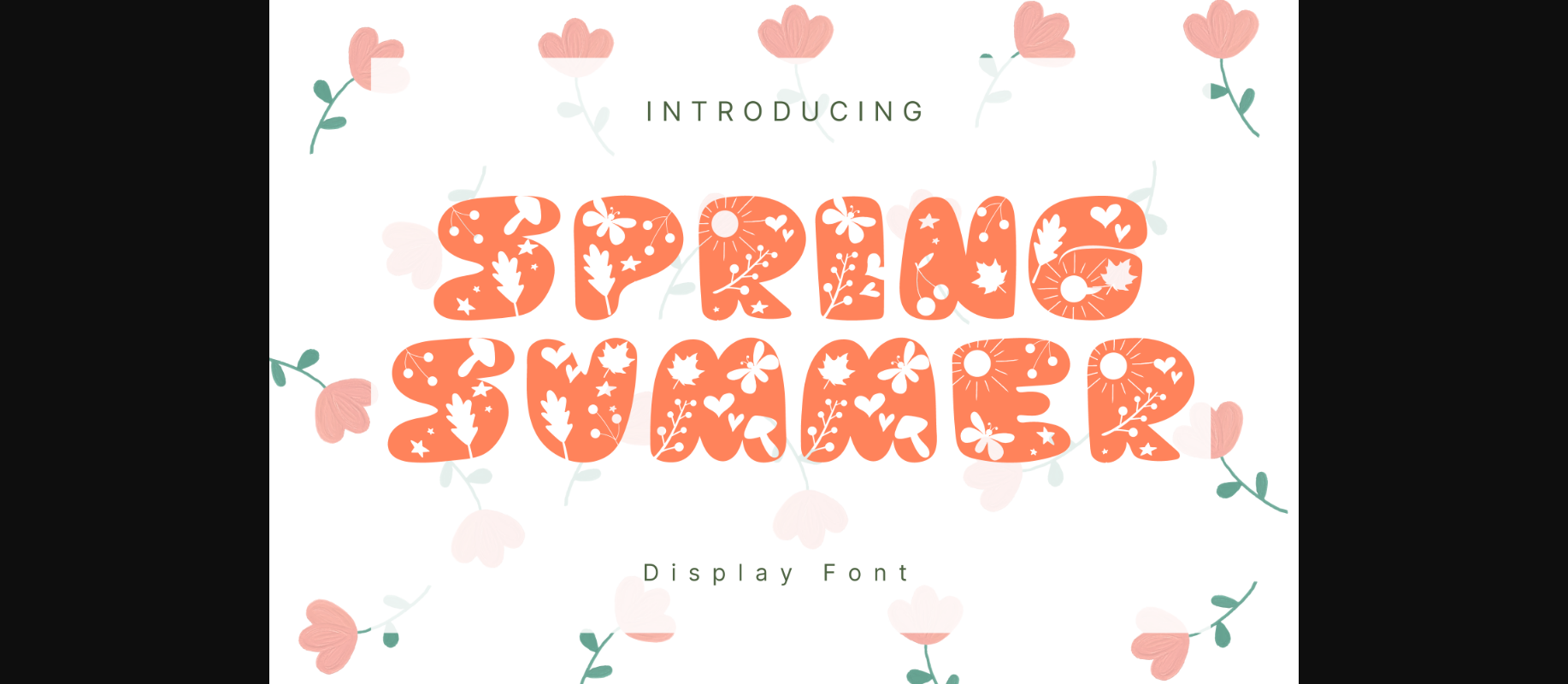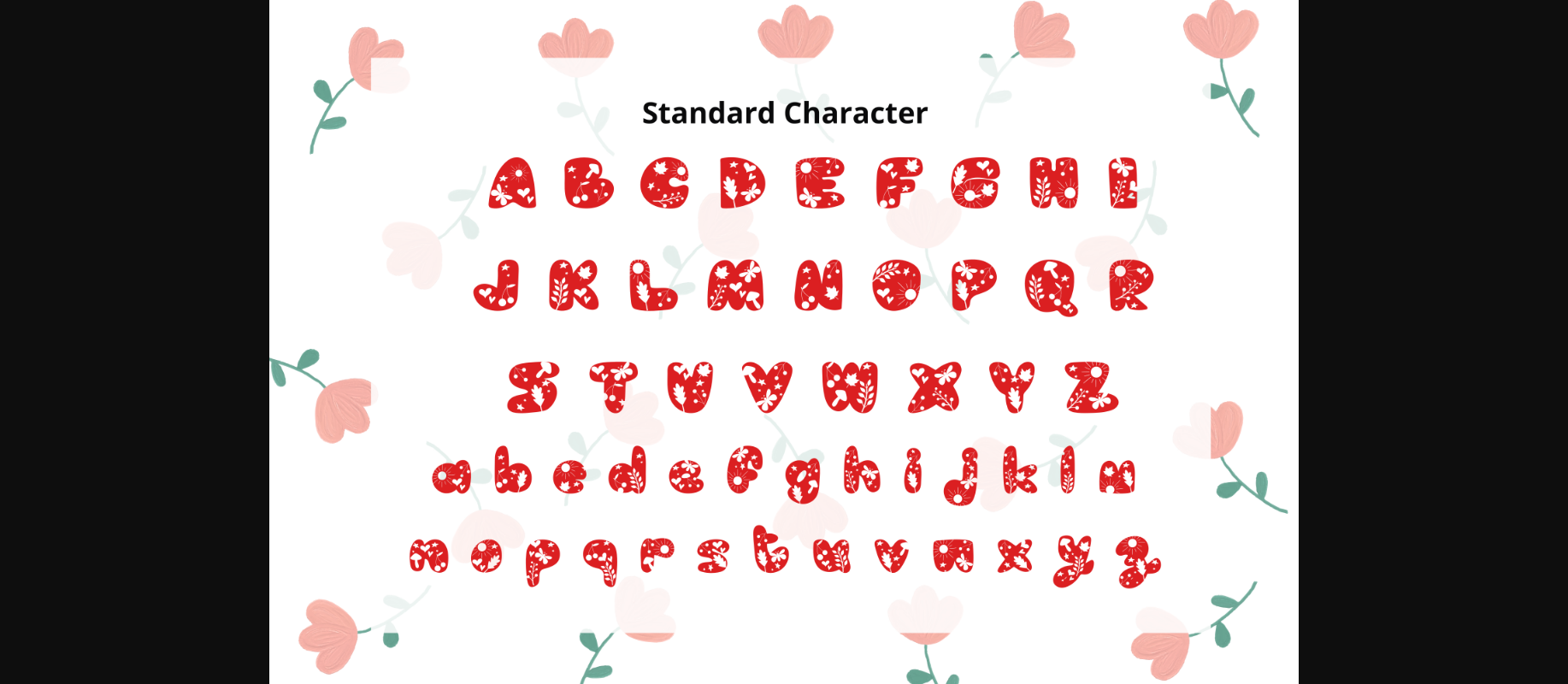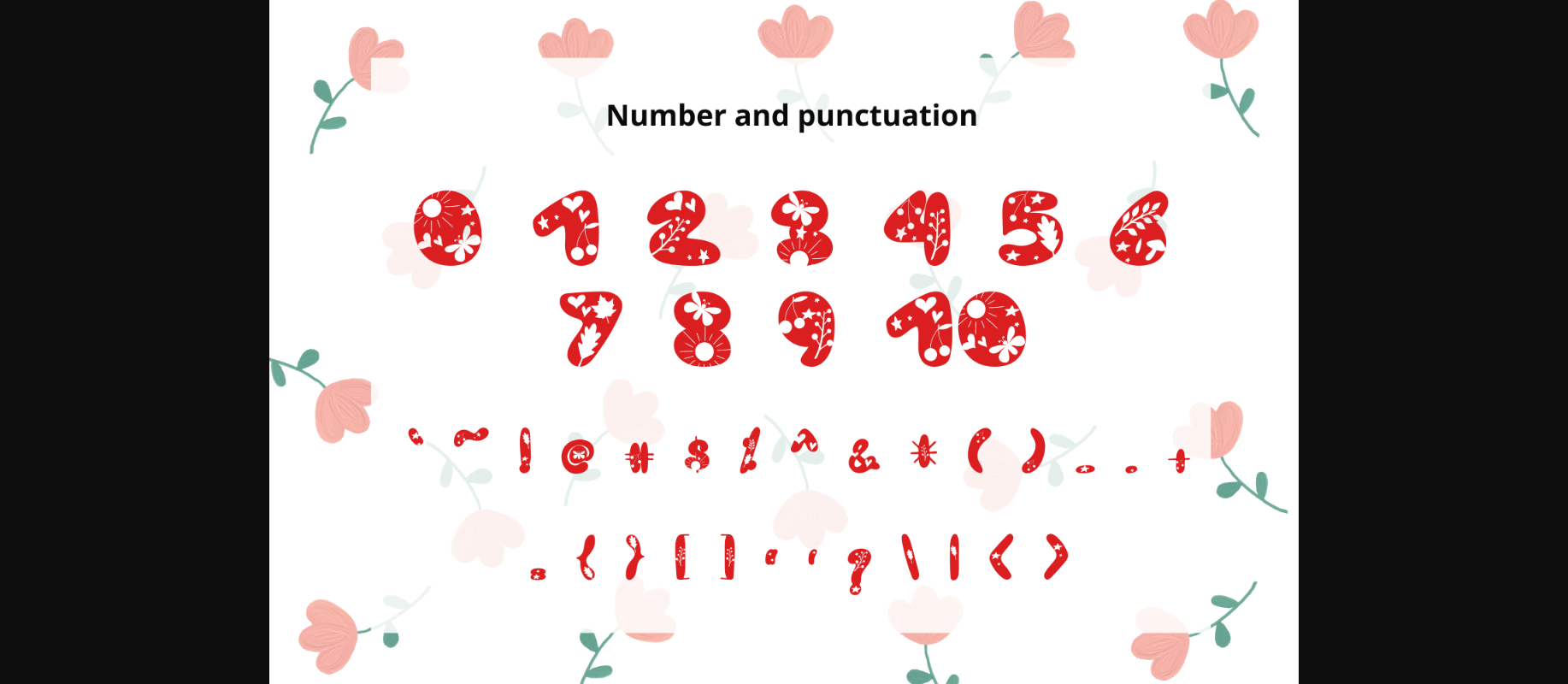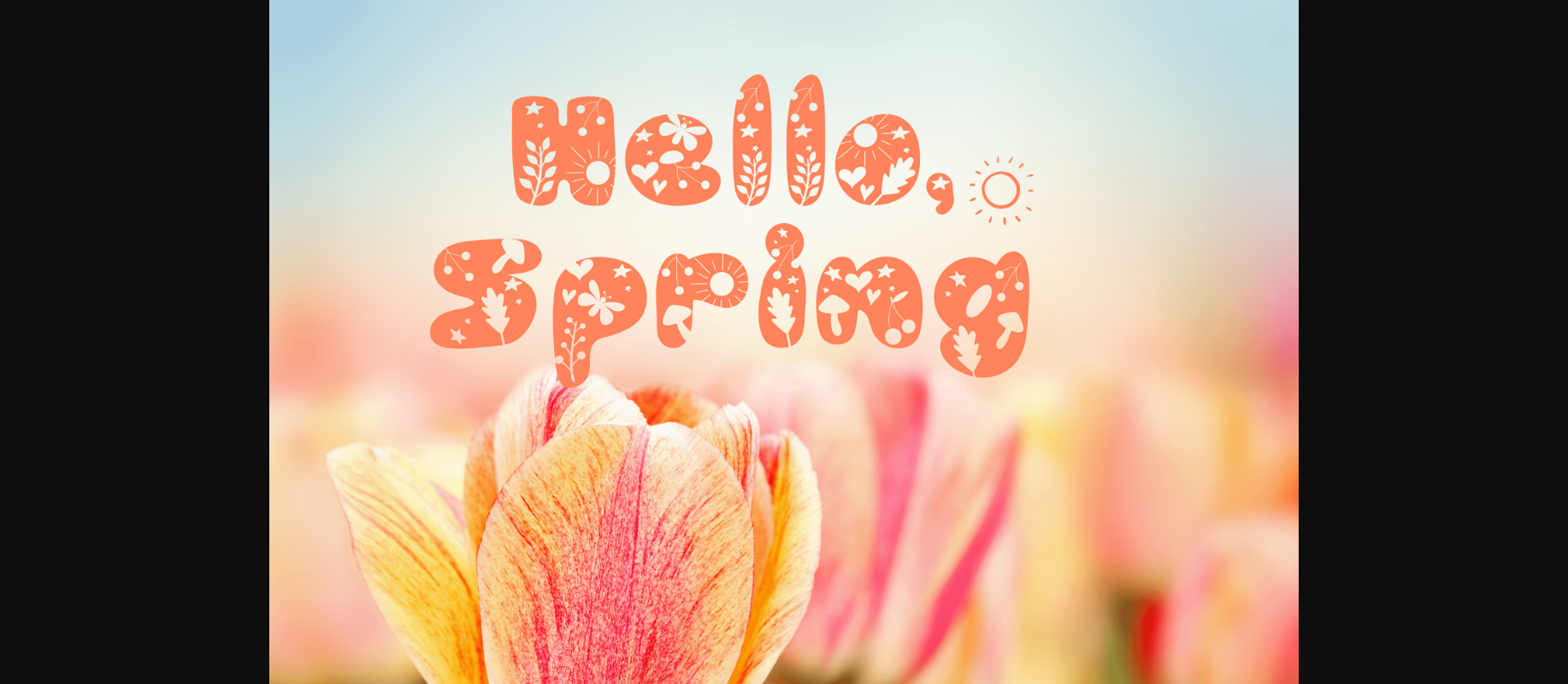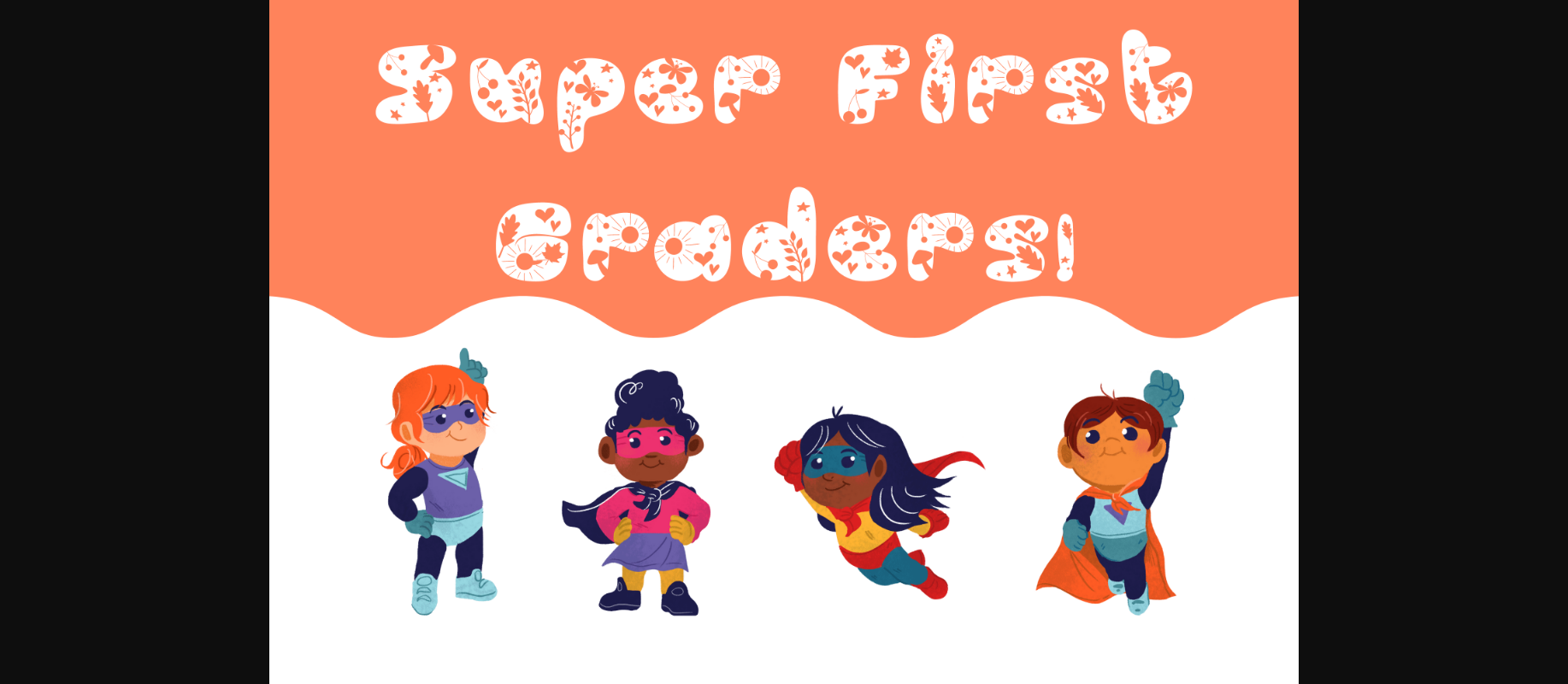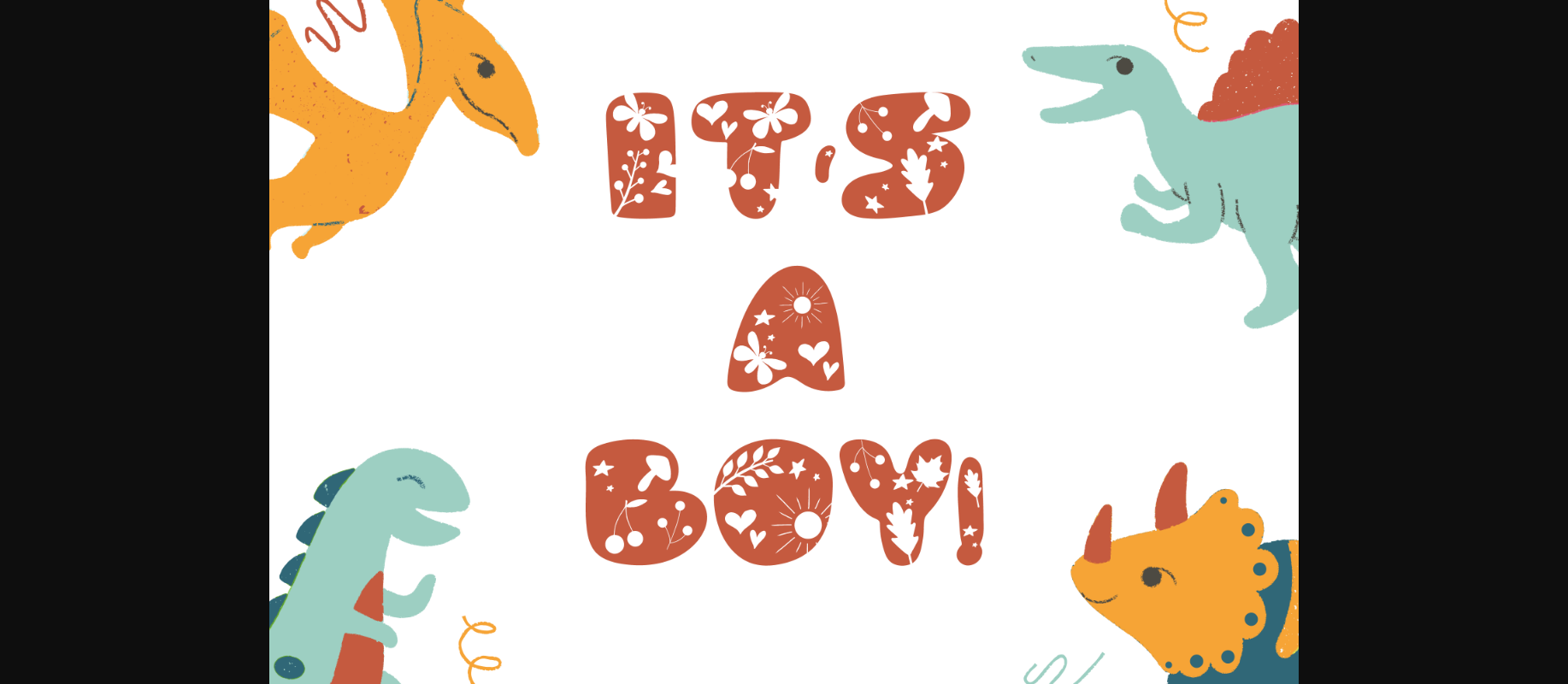
HomeDecorative FontsSpring Summer Font Decorative Fonts Spring Summer Font FacebookTwitterPinterestWhatsApp 1 of 8 ... Spring Summer Font Poster 2... Spring Summer Font Poster 3... Spring Summer Font Poster 4... Spring Summer Font Poster 5... Spring Summer Font Poster 6... Spring Summer Font Poster 7... Spring Summer Font Poster 8... About Spring Summer Font Spring Summer is a whimsical and adorable decorative display font. It can easily be matched to an incredibly large set of projects, so add it to your creative ideas and notice how it makes them stand out! DOWNLOAD NOW People also explored Frosty Blue Font Diamond Font Play Date Font Keroya Font Gravitation Font Destinee Elizabeth Font Morganite Amber Font Hello Font Specials Font 184 0 TagsSpring Summer Font Previous articleManday FontNext articleMagic Lotus Font LEAVE A REPLY Cancel reply Comment: Please enter your comment! Name:* Please enter your name here Email:* You have entered an incorrect email address! Please enter your email address here Website: Save my name, email, and website in this browser for the next time I comment. Personal Use Free Boby Personal Use Free Read more about this font Soria Personal Use Free Read more about this font Carved Wood Personal Use Free Read more about this font Beattingvile Personal Use Free Read more about this font BLOG Free vs Paid Fonts: Why Investing in Premium Fonts Is Worth It Free vs Paid Fonts: Why Premium Fonts Are Worth It in 2025 The debate of free vs paid fonts continues in the design world. While... To increase your work productivity, choose the most readable fonts. Elegant Wedding Invitation Fonts – Handwritten & Script Fonts Best Fonts for T-Shirt Design – Top 2025 Picks